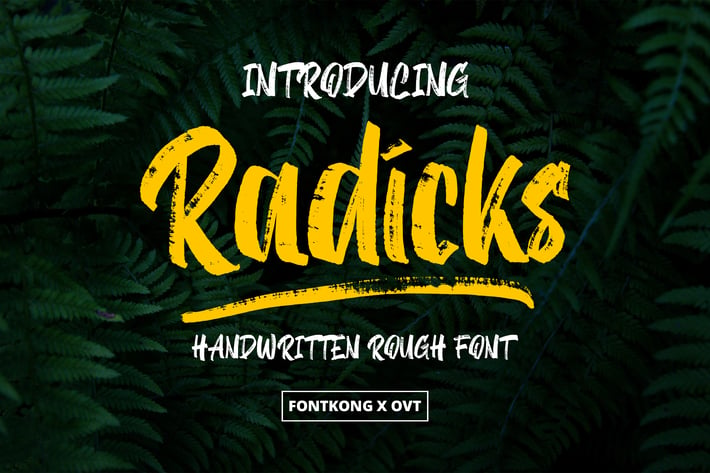
Radicks - Handwritten Rough Font
Introducing "Radicks," a handwritten rough font designed to bring a bold, edgy feel to your designs. With its raw, unpolished strokes, Radicks captures the essence of hand-crafted lettering, making it perfect for projects that require a touch of rugged authenticity.
"Radicks" excels in a variety of creative applications, from posters and album covers to branding, packaging, and social media graphics. Its distinctive style ensures your text stands out, delivering a powerful visual impact. The font includes a complete set of uppercase and lowercase letters, numerals, punctuation, and supports multiple languages, providing the versatility you need for diverse design projects.
Let "Radicks" infuse your work with a sense of raw creativity and unrefined charm. This font is ready to become a staple in your design arsenal.